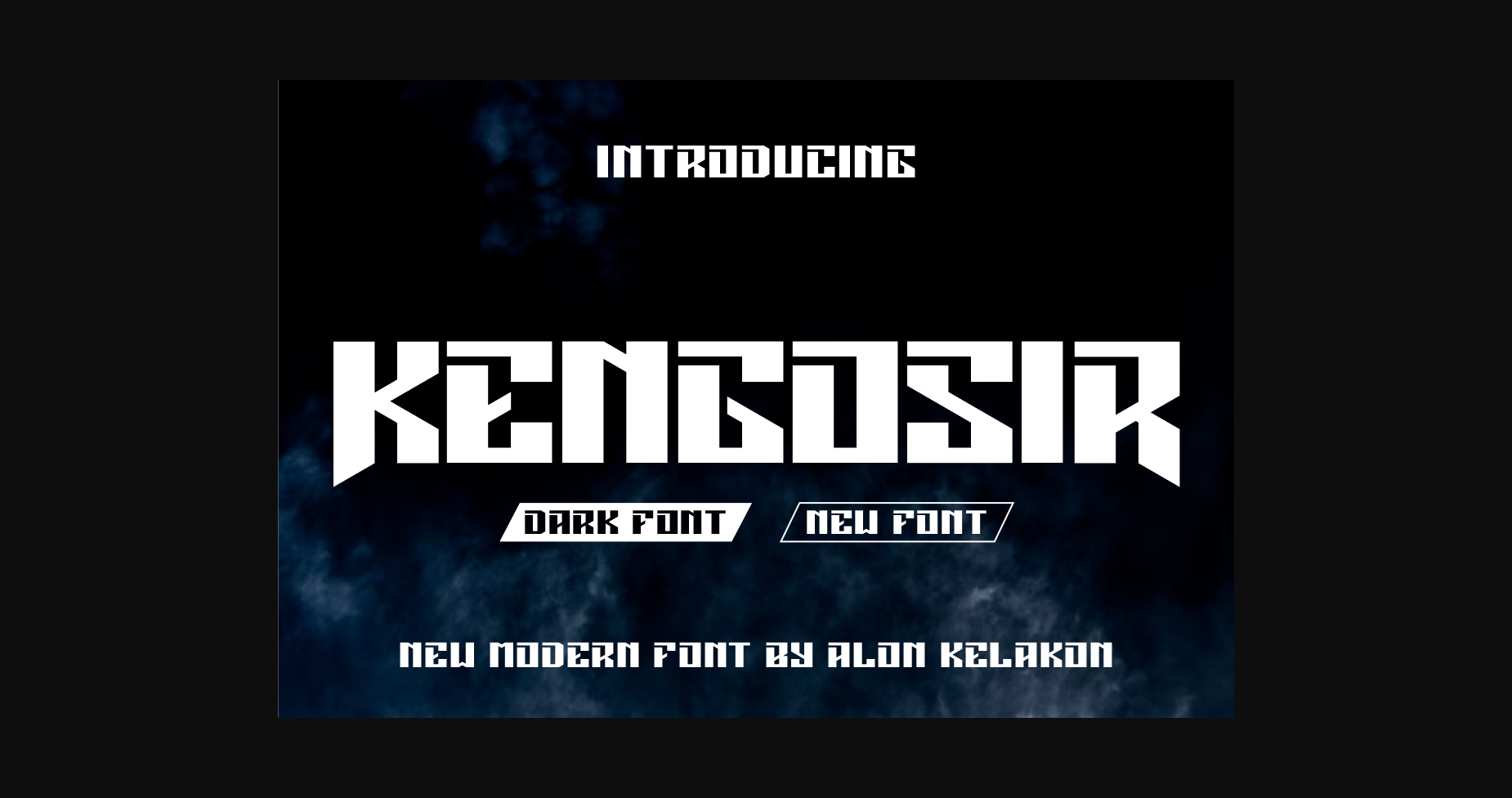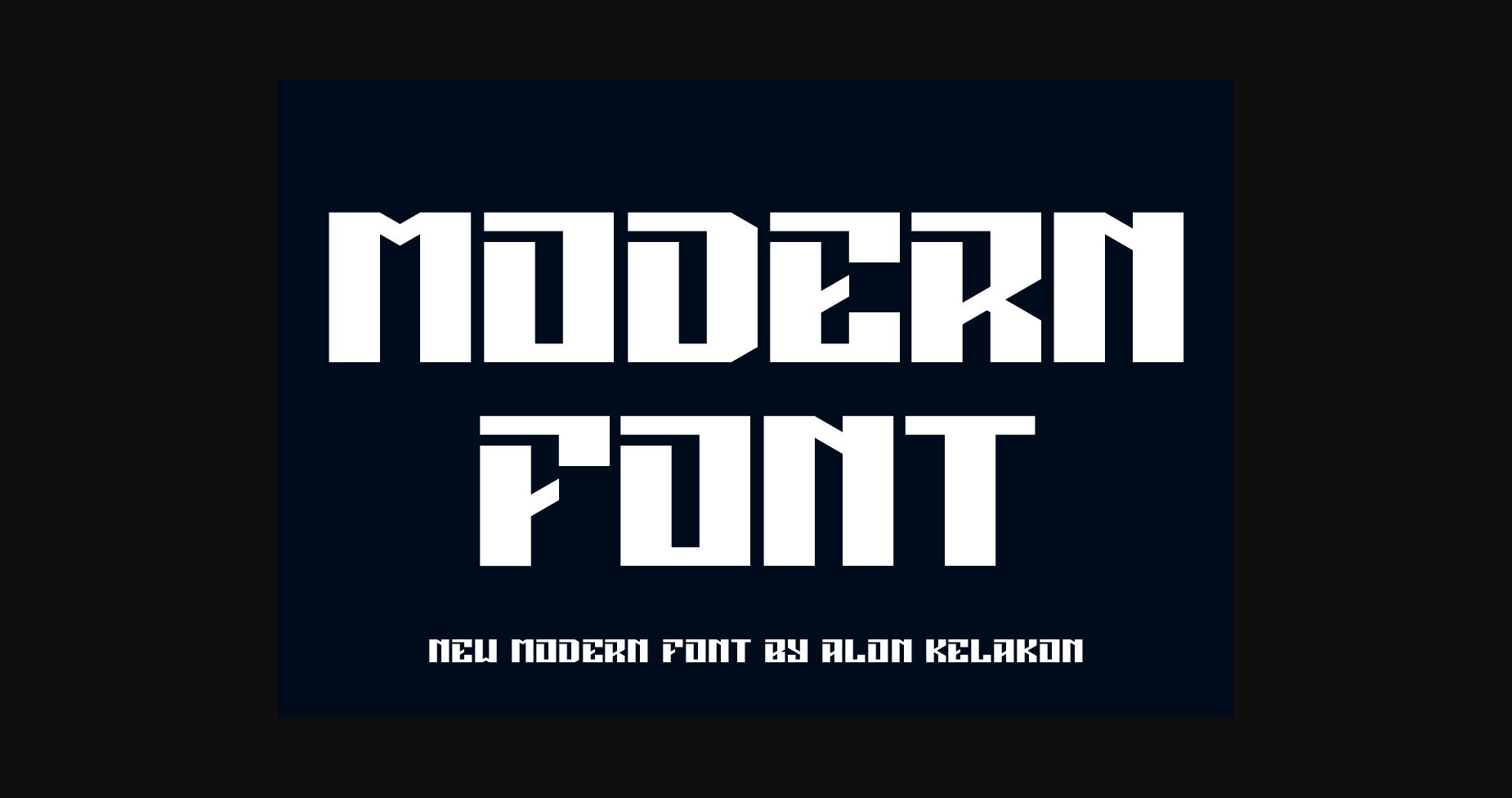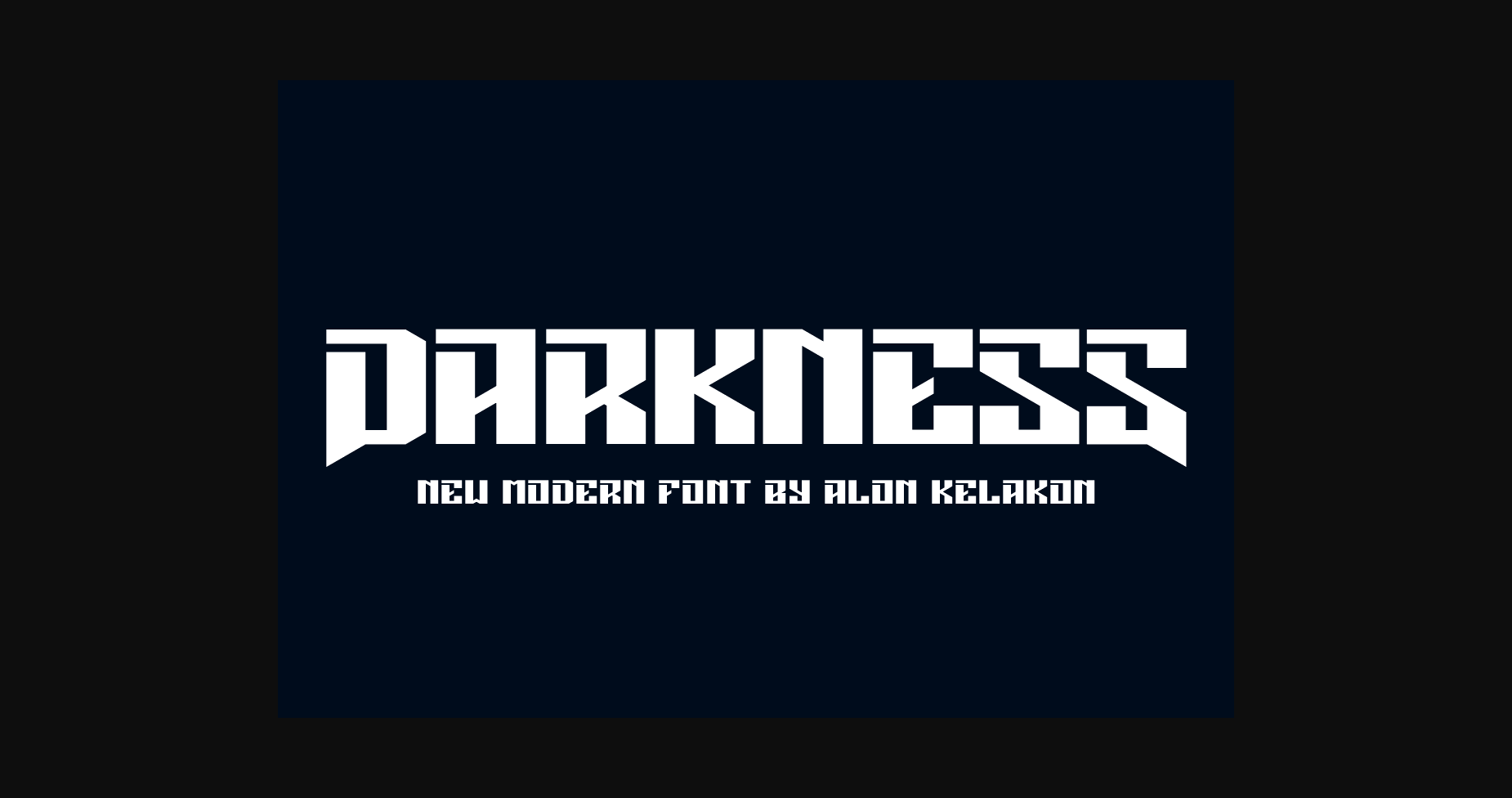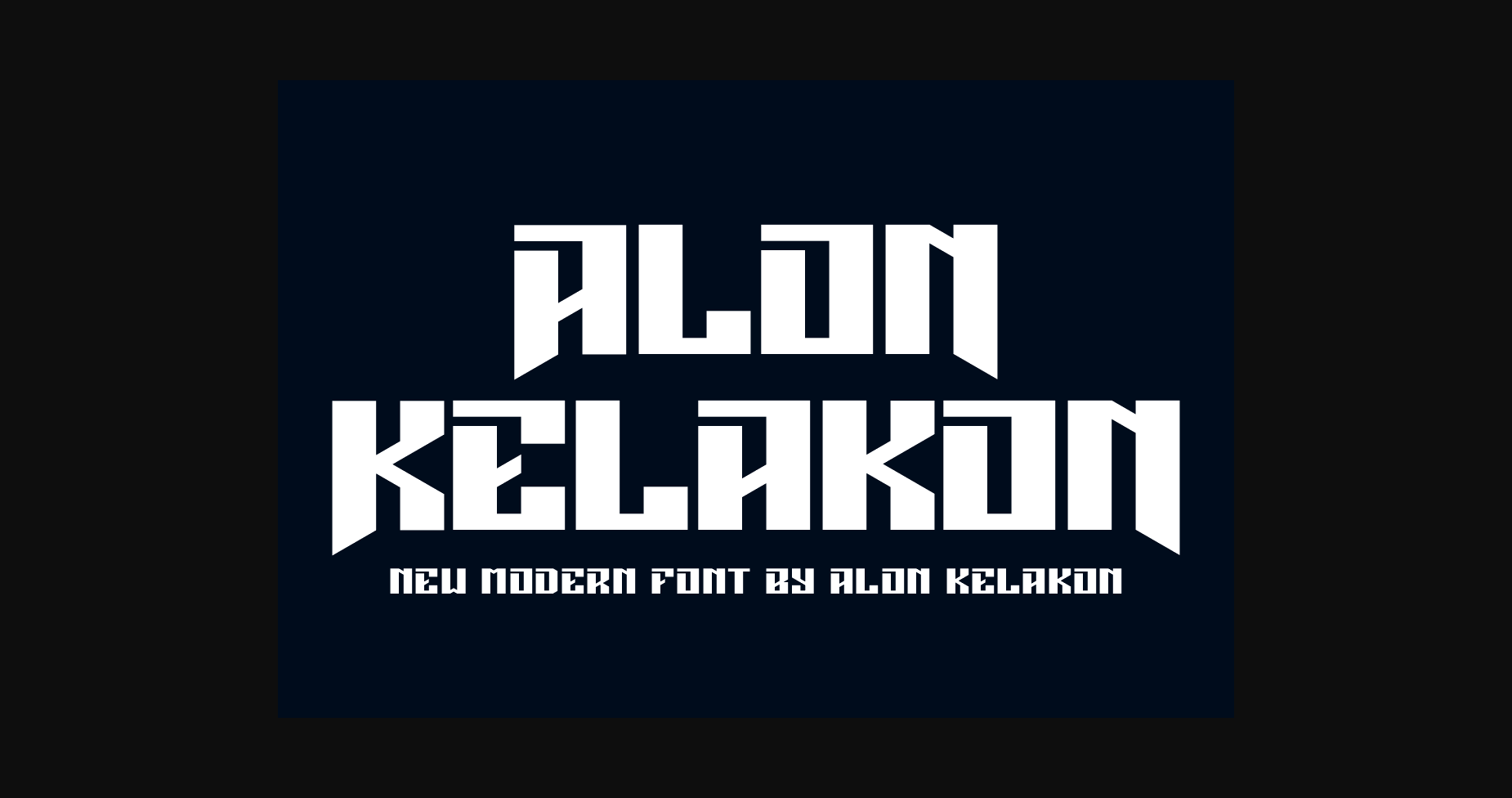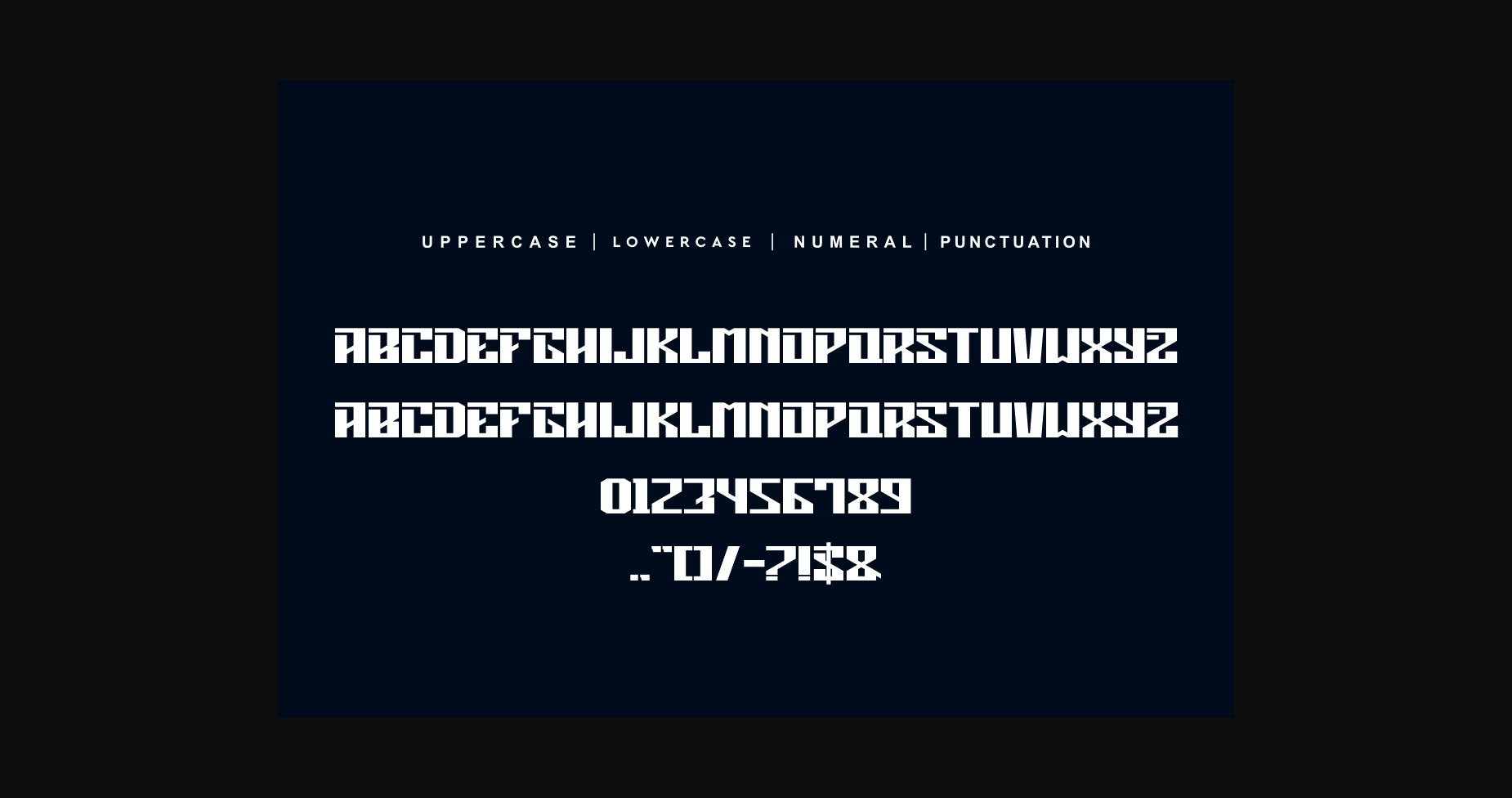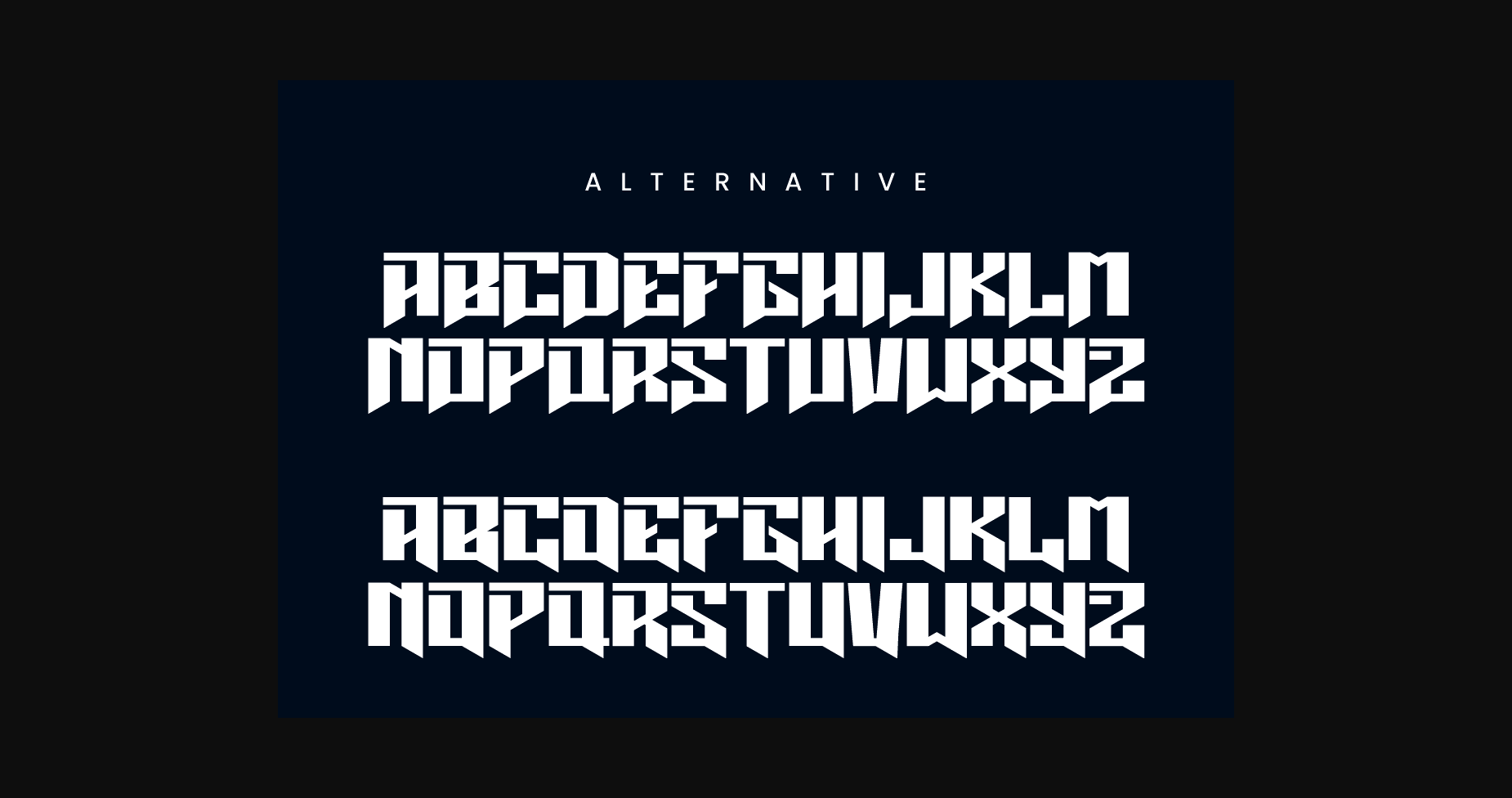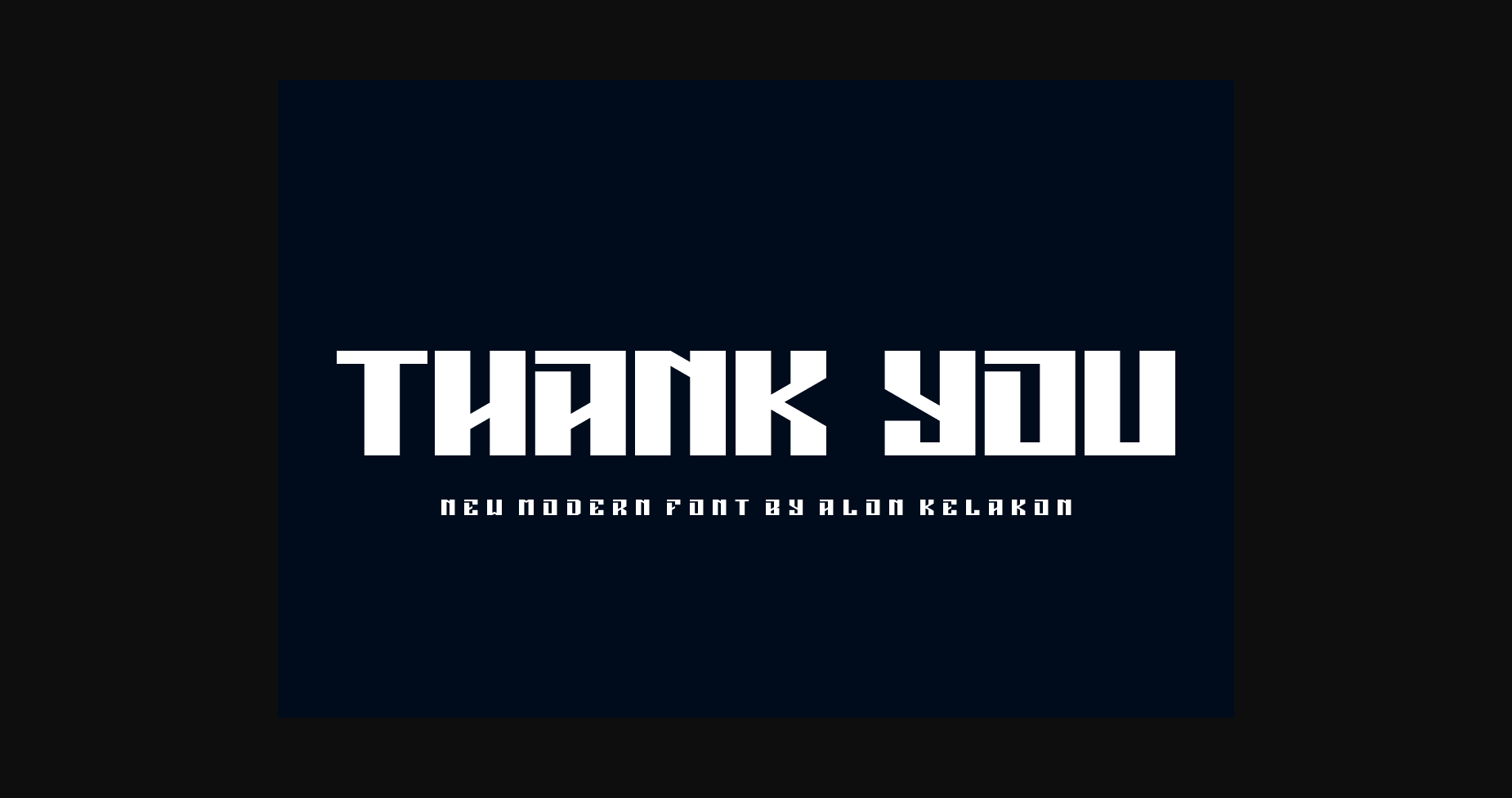
Kengosir Font
About Kengosir Font
Kengosir Font is unique. Ready to use for your design like labeling, clothing, movie scenes, poster, movie title, gigs, album covers, logos, and much more.